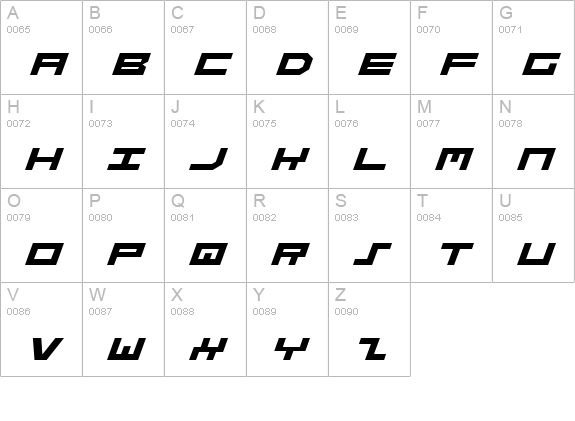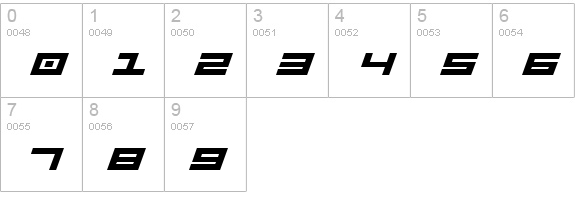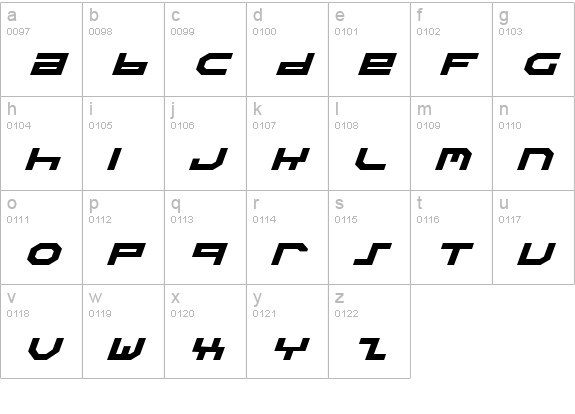
Stuntman Expanded Italic is a distinctive, extended-width, italic variant in the Stuntman typeface family \xE2\x80\x94 well suited to design and typography projects.
Stuntman Expanded Italic font is a bold and dynamic typeface that exudes energy and excitement. With its slanted and elongated letterforms, this font is perfect for adding a touch of flair and creativity to your designs. Whether you're working on a poster, logo, or website, Stuntman Expanded Italic will make your text stand out and grab attention. What's even better is that this font is available for free download at FontsMarket.com. Yes, that's right - you can enhance your projects with this eye-catching typeface without spending a dime. So why wait? Give your designs that extra edge with Stuntman Expanded Italic font today!